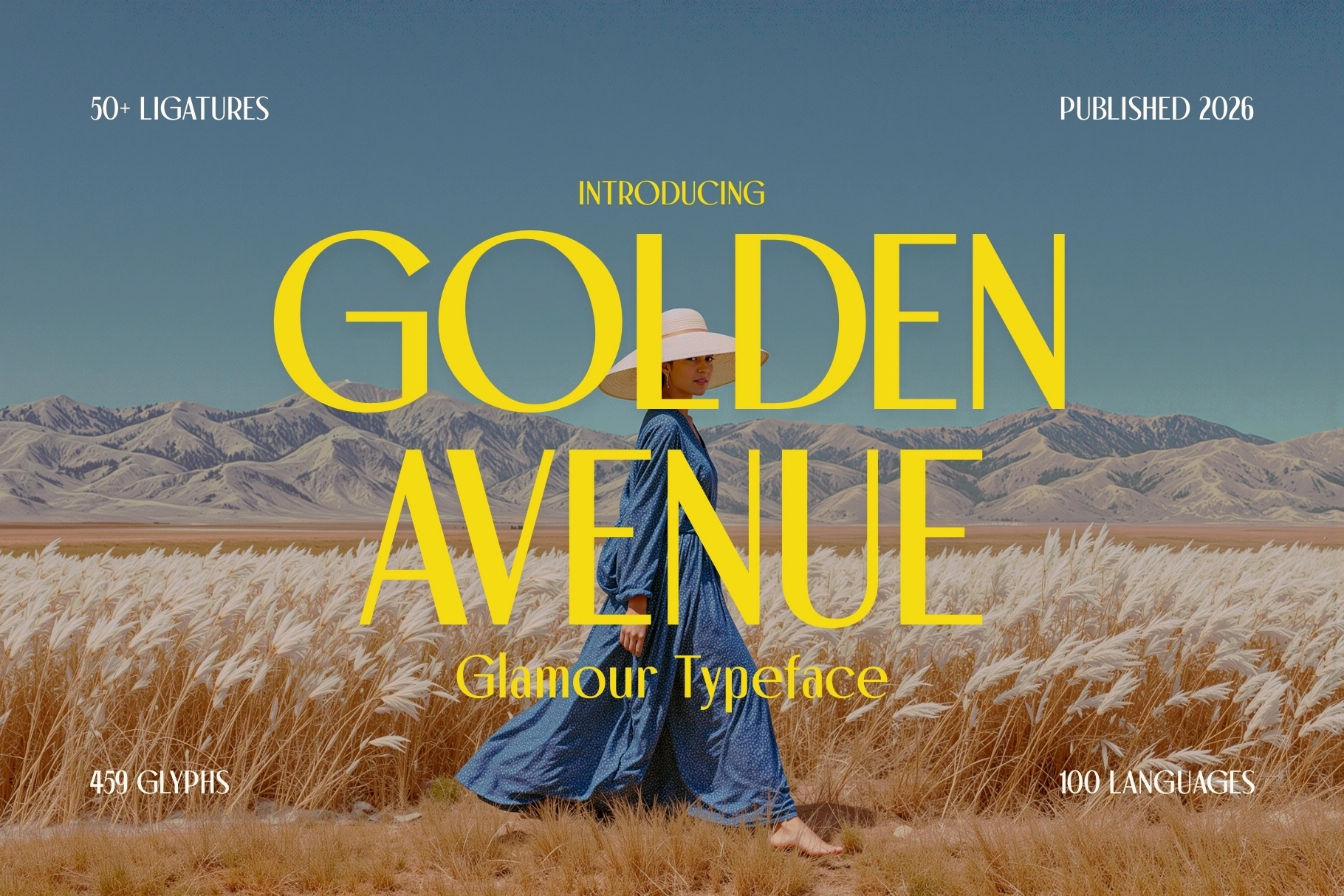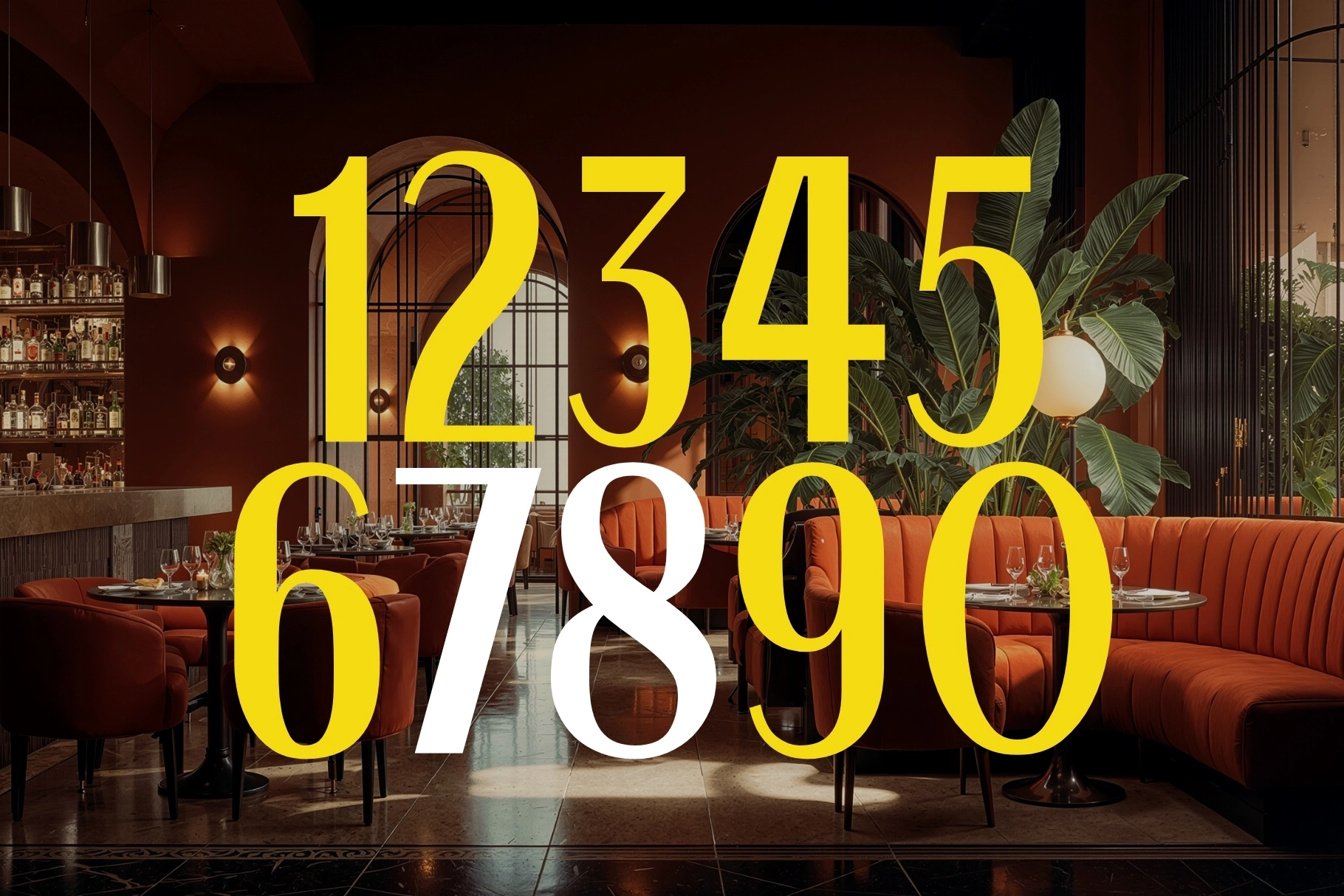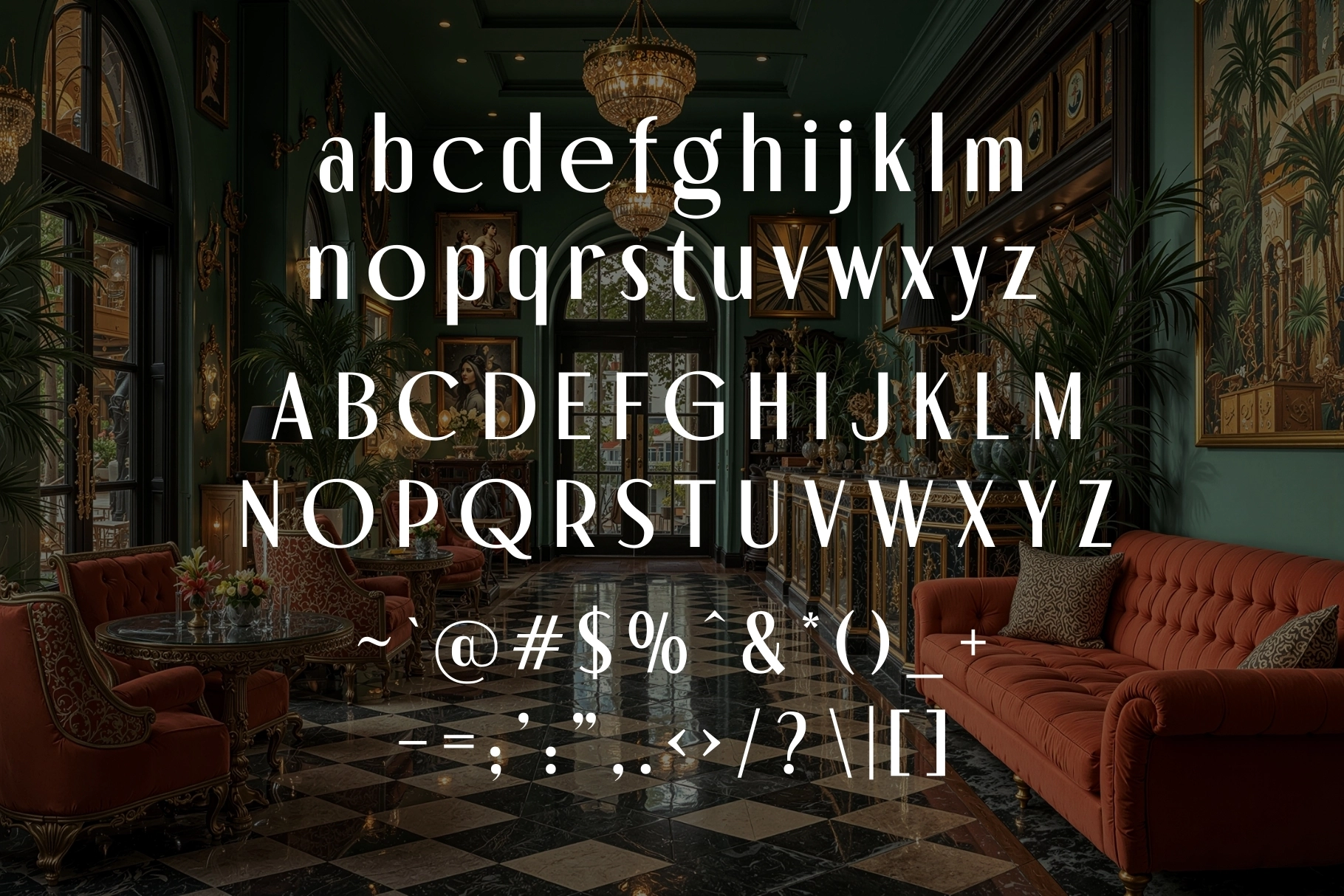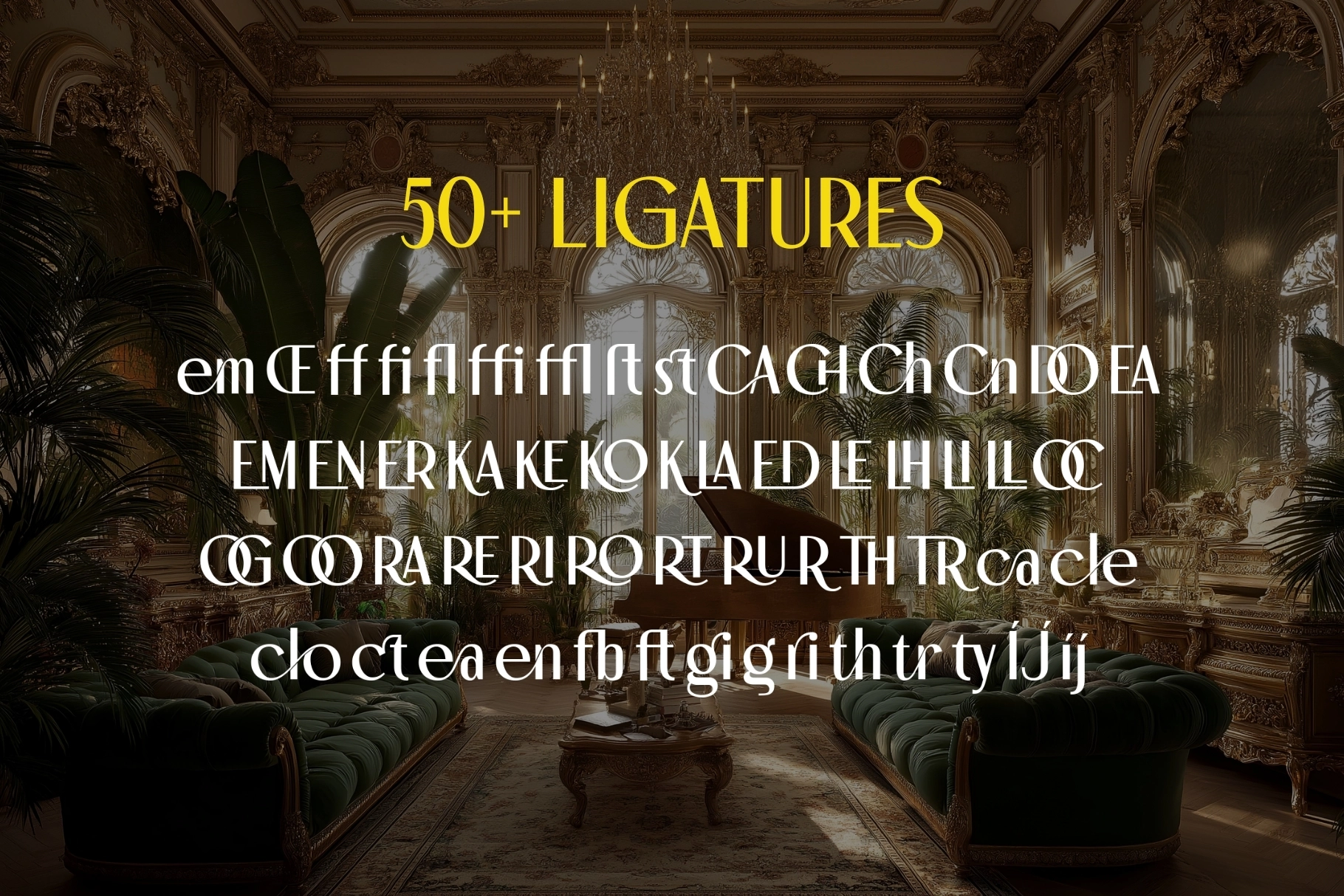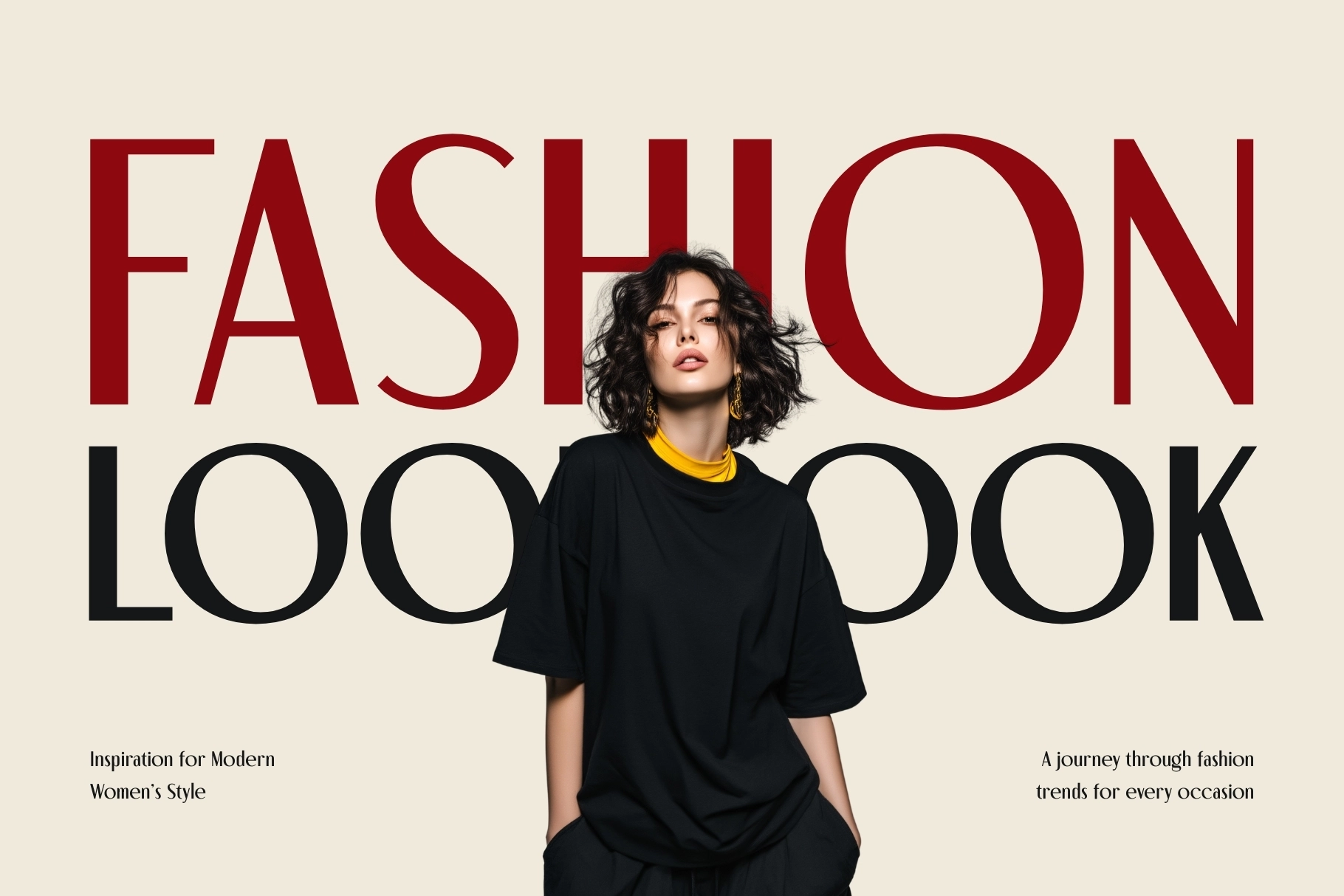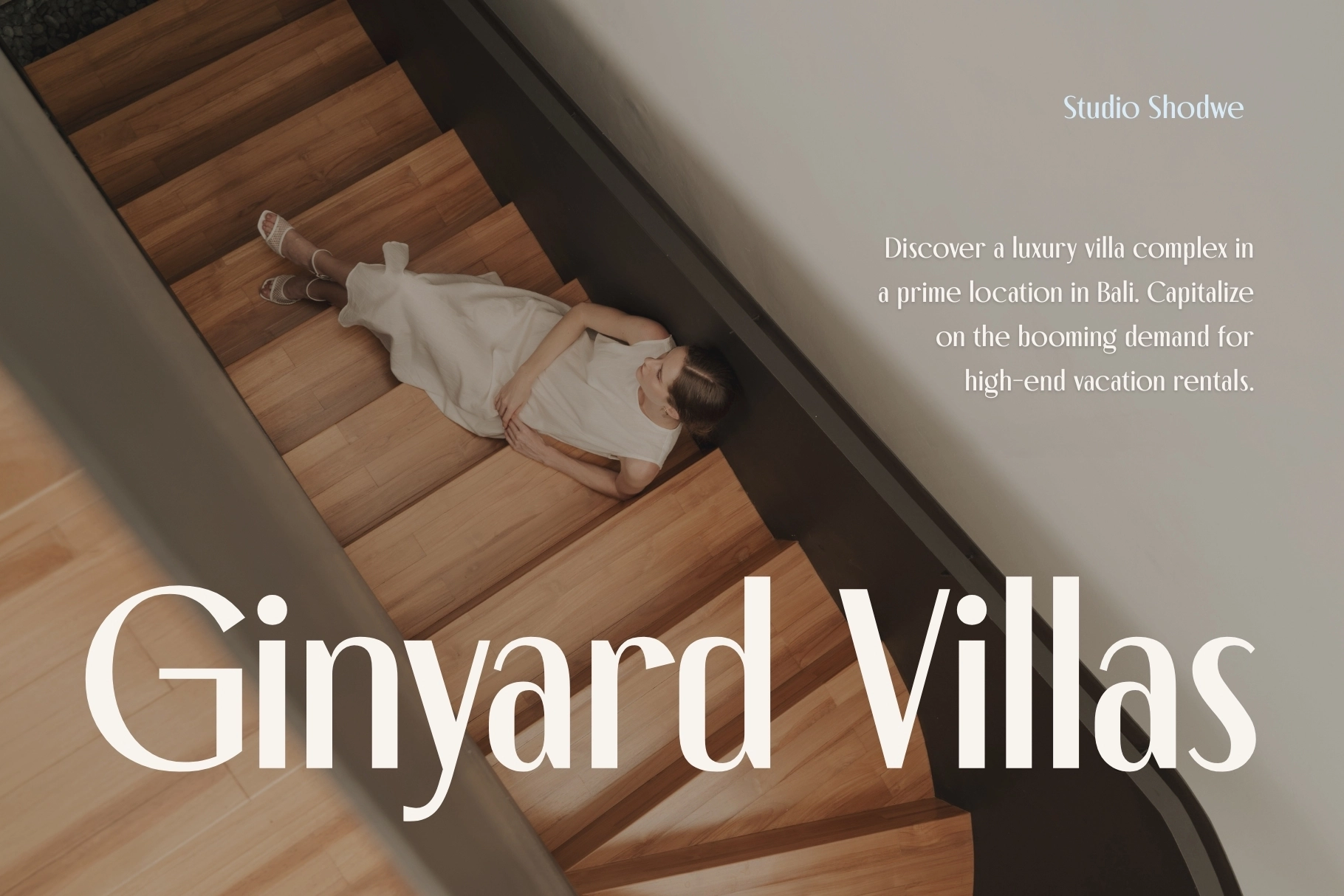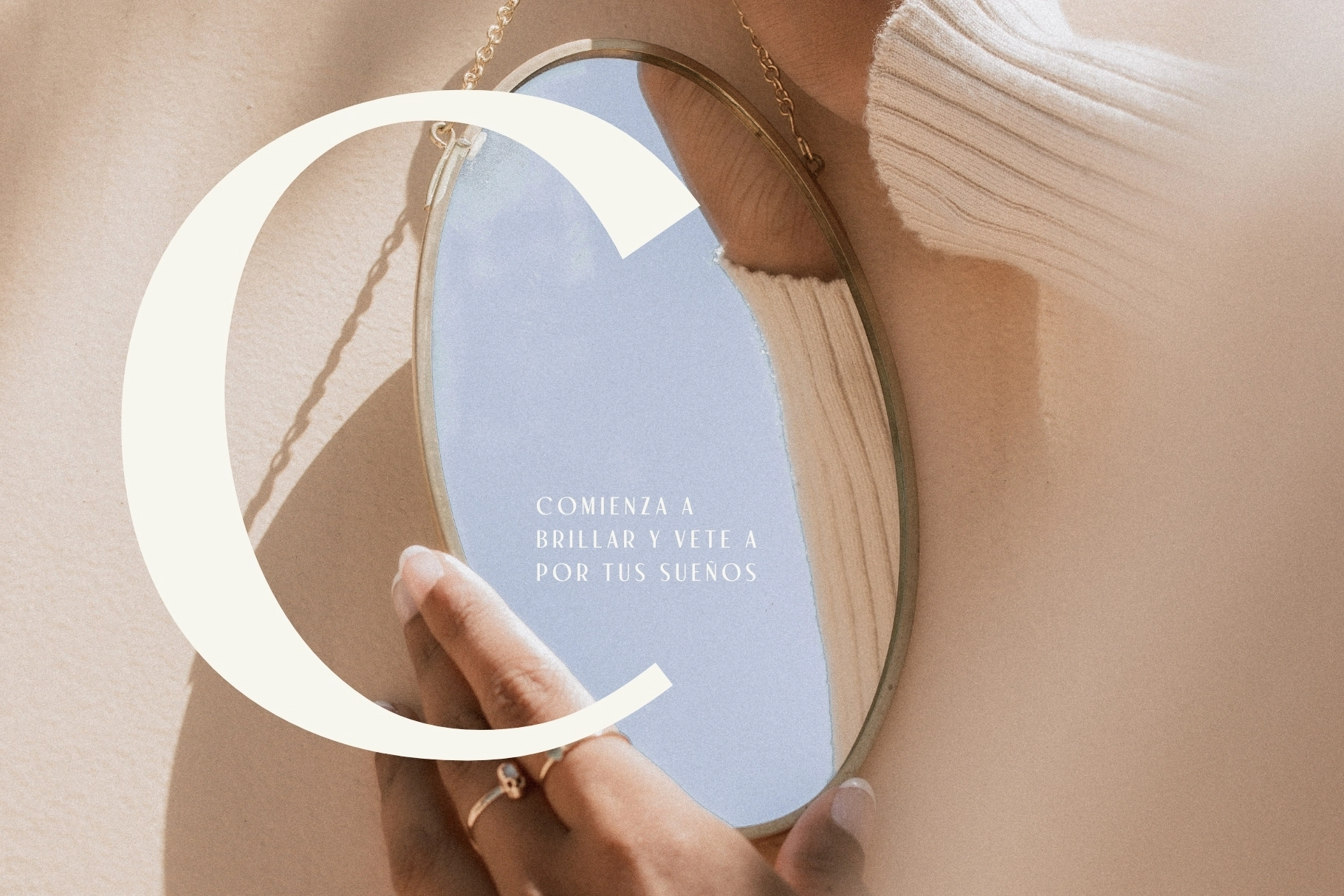
Golden Avenue - Glamour Typeface
Golden Avenue
Golden Avenue – Glamour Typeface is a sophisticated display typeface inspired by the elegance of Art Deco architecture and classic French design. With tall proportions, refined geometry, and graceful curves, it captures the timeless glamour of vintage Parisian posters, classic cinema titles, and luxury branding.
Blending retro charm with modern precision, Golden Avenue creates a polished and distinctive visual identity. Its stylish rhythm and elegant letterforms make it perfect for high-end branding, editorial layouts, packaging, and bold headlines that require a touch of vintage luxury.
- 50+ Stylish Ligatures
- Numerals & Punctuation
- 459 Glyphs
- Multilingual Support (100 Languages)